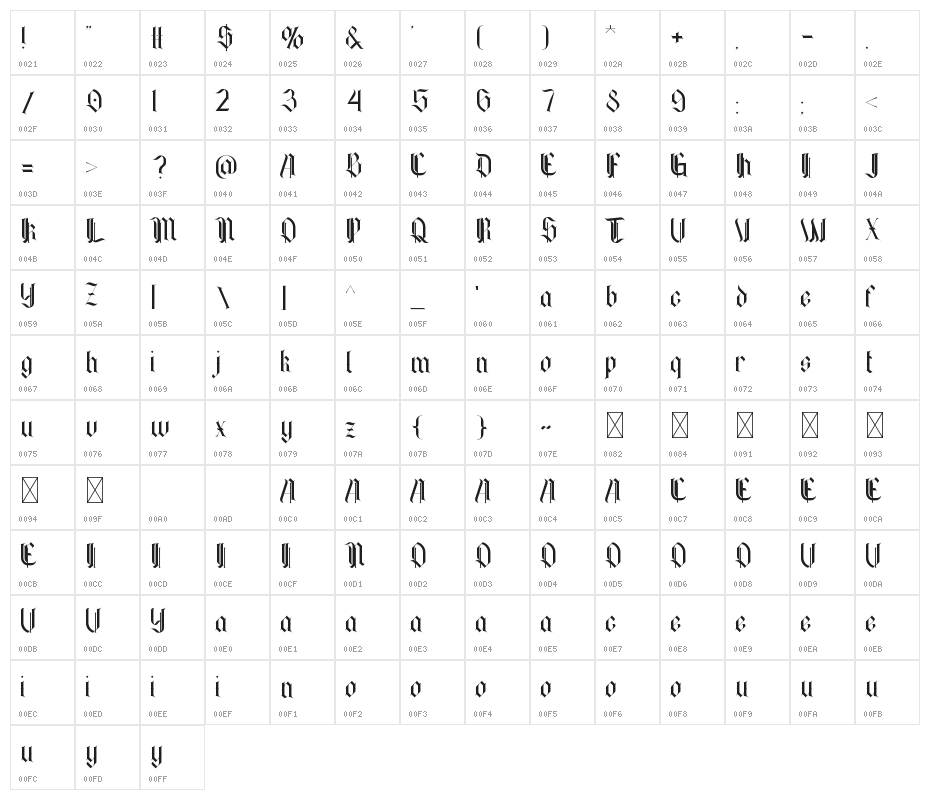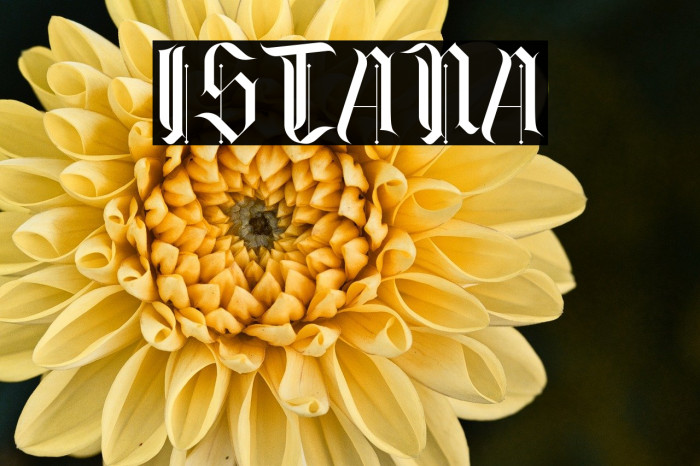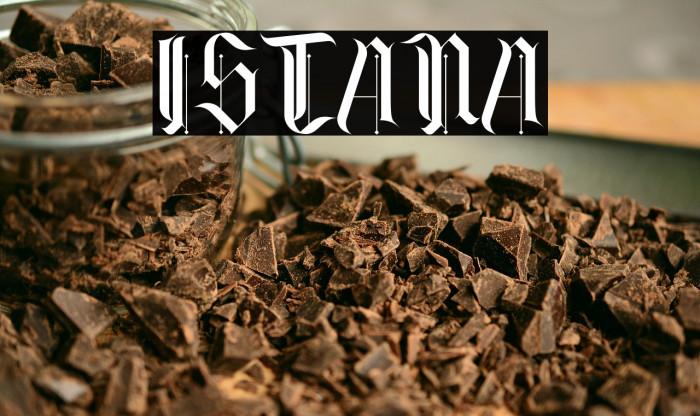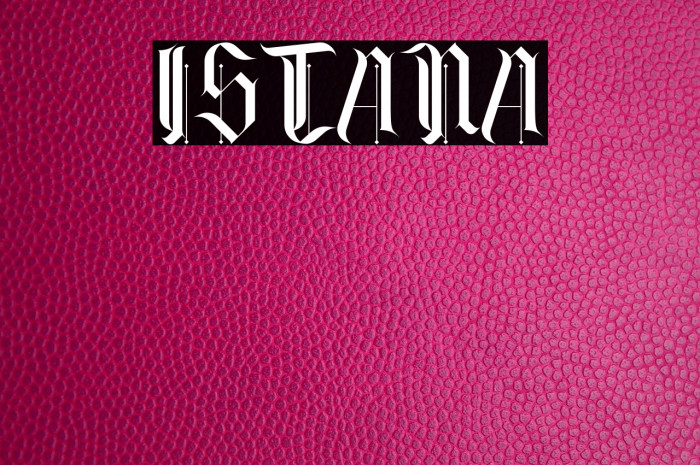
ISTANA Font
ISTANA Description
This font features a traditional blackletter style, characterized by its intricate and ornate design. The letters are bold and angular, with sharp edges and a high contrast between thick and thin strokes. The uppercase letters are particularly elaborate, with decorative elements that give them a gothic appearance. The lowercase letters maintain the same stylistic features but are slightly more streamlined for readability. Numbers and special characters are consistent with the overall aesthetic, adding a medieval flair to the font. This font is ideal for projects that require a historical or dramatic touch.
| Overall Style | Gothic, Medieval, Dramatic |
| Use Case | Headlines, Logos, Decorative text |
| Proposed Projects | Suitable for historical documents, gothic-themed designs, book covers, posters, and branding that requires a dramatic or medieval touch. |